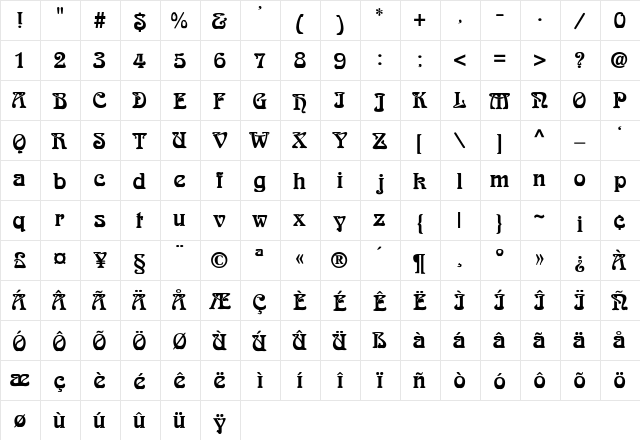
ArnoldBoecklin-ExtraBold Regular
Design Context for ArnoldBoecklin-ExtraBold Typeface
ArnoldBoecklin-ExtraBold is a composed and adaptable typeface that performs quietly and consistently across a wide range of design contexts. The heavy weight commands attention and anchors typographic hierarchies.